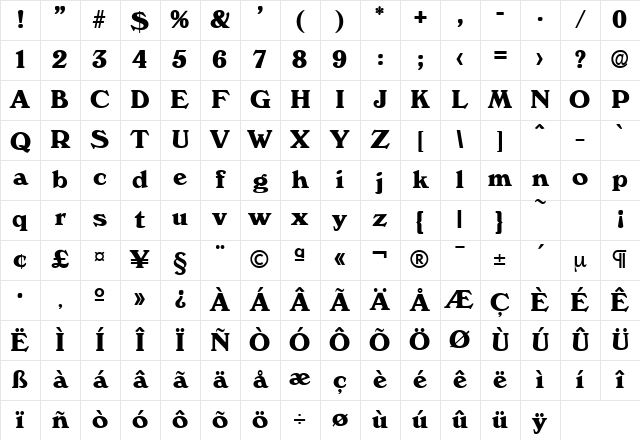
Complete Verona-Serial-ExtraBold Regular glyph index. Displaying only characters natively supported by Verona-Serial-ExtraBold Regular font.
Verona-Serial-ExtraBold is a composed and adaptable typeface that performs quietly and consistently across a wide range of design contexts. Its bold stroke weight gives it real presence on the page.